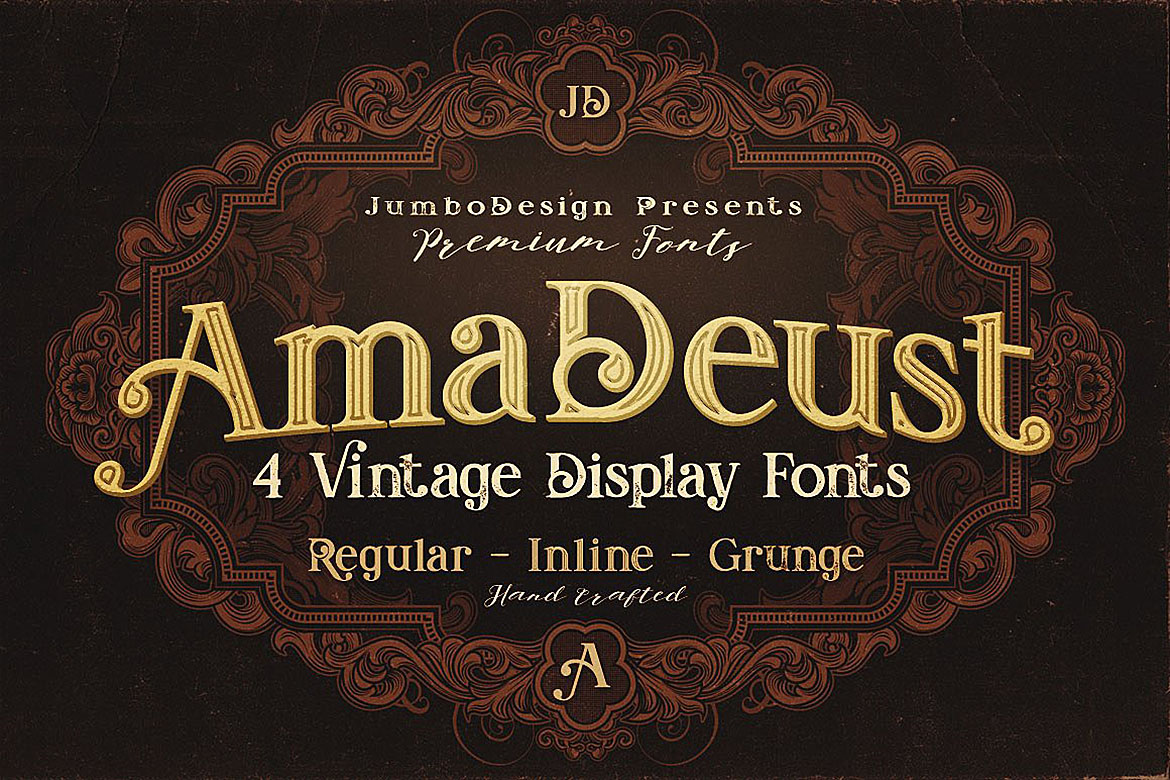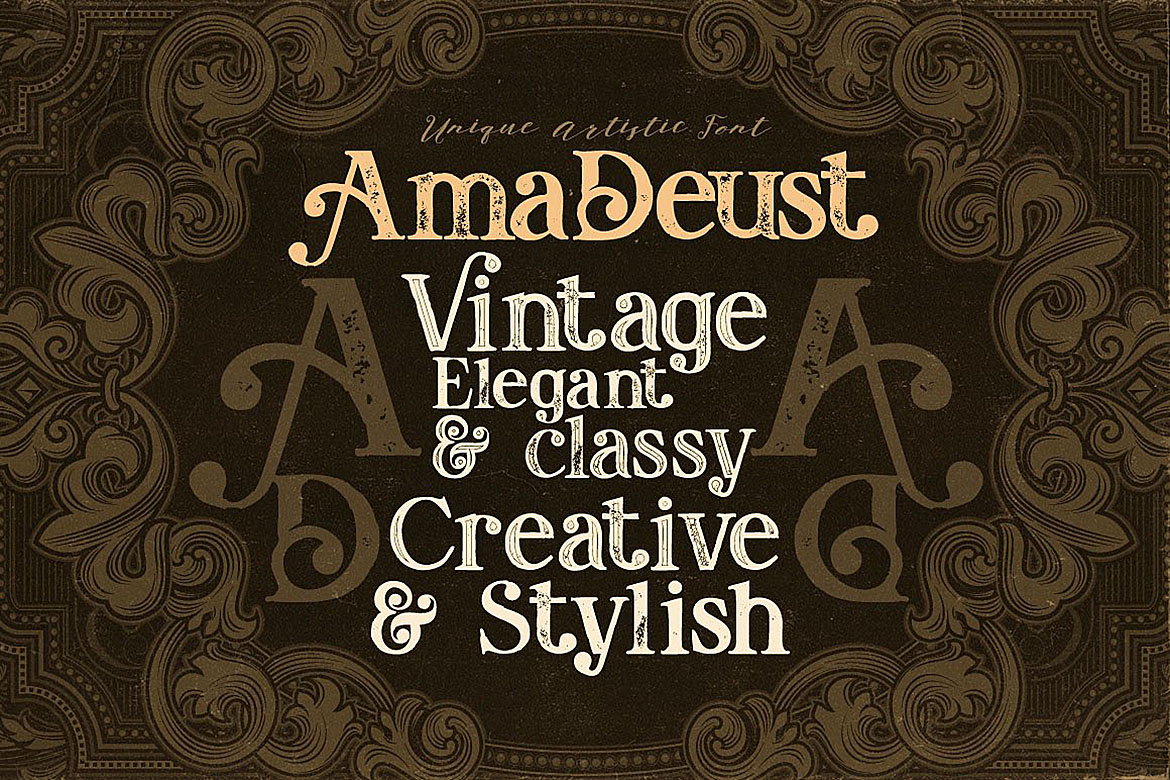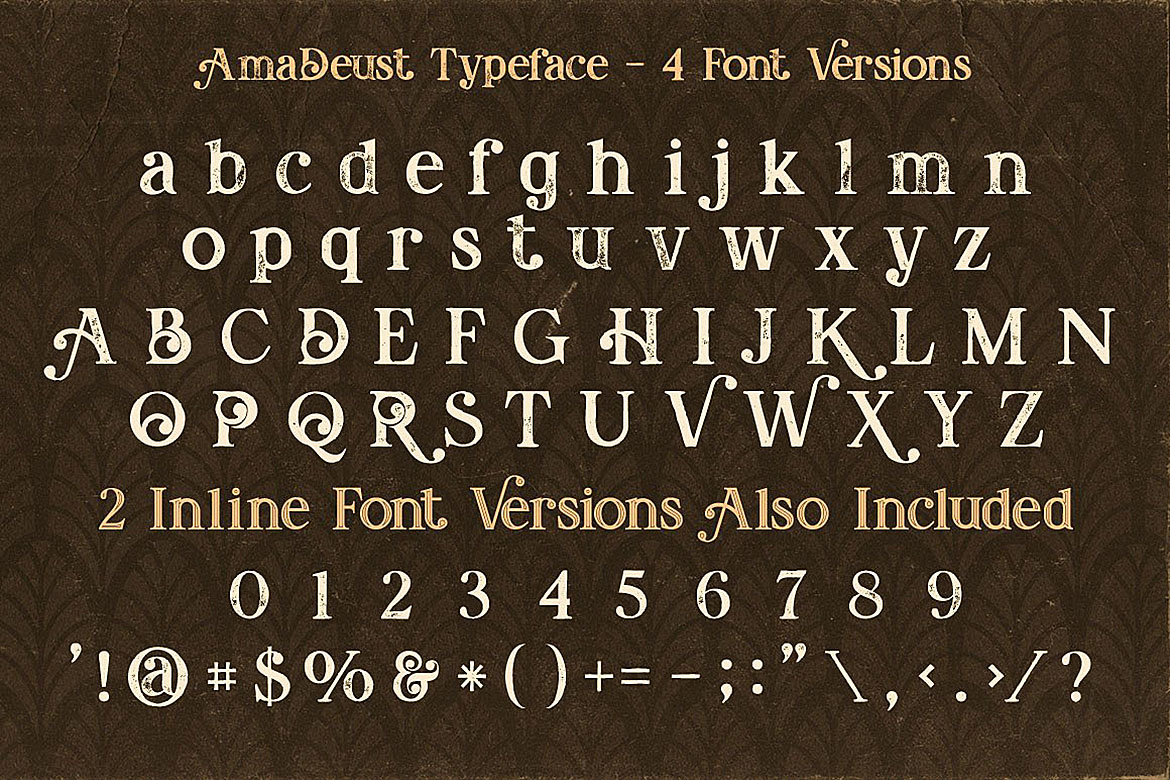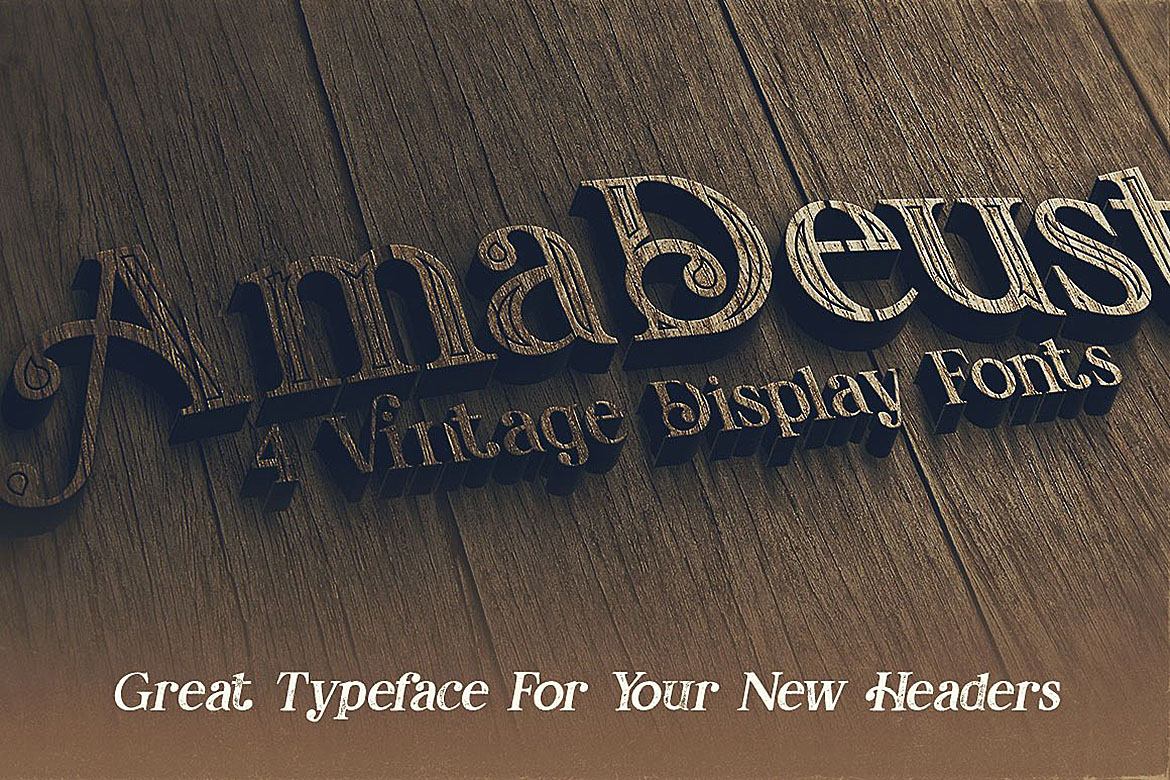
AmaDeust is the ultimate in vintage inspired typography; this unique and ornamental style custom serif font comes with 4 styles: regular and grunge, inline and inline grunge. This is a luxe looking font, ideal for your special event designs and creative projects.